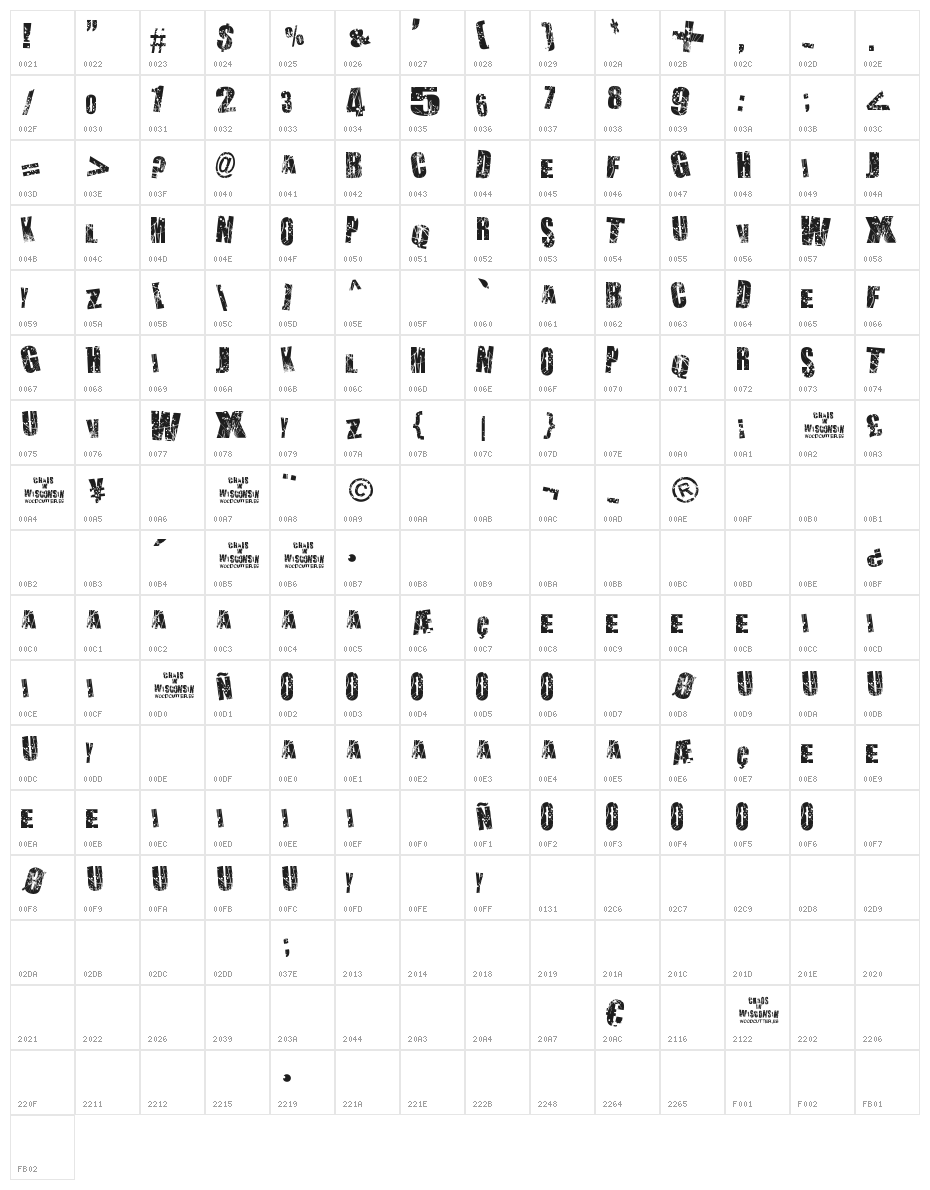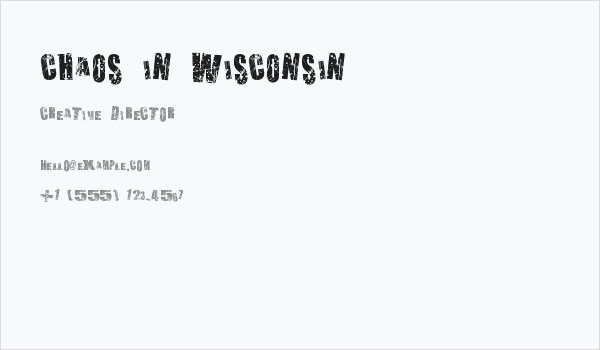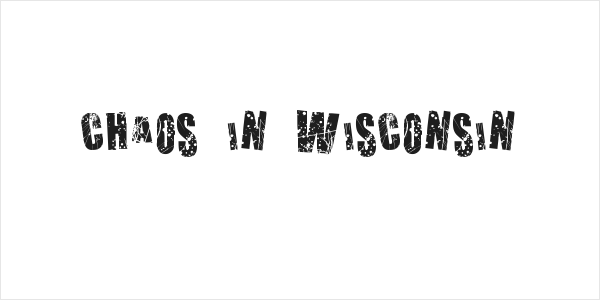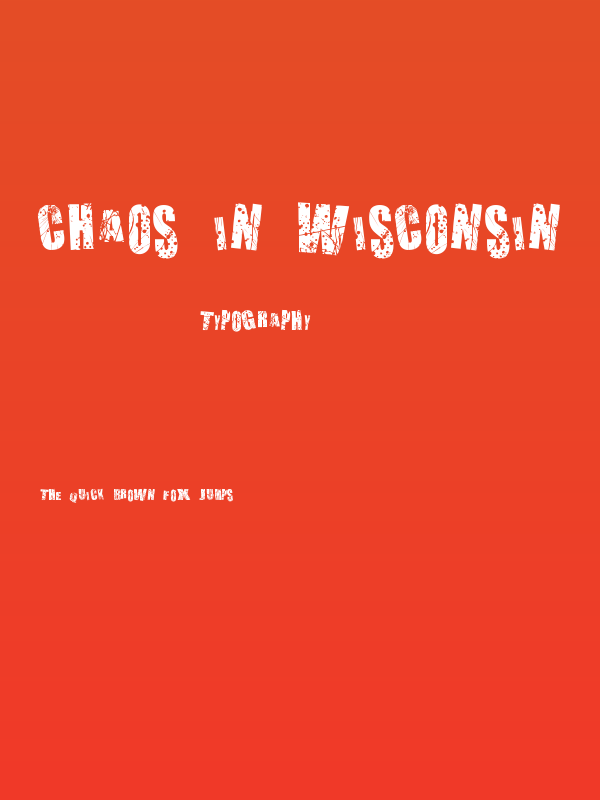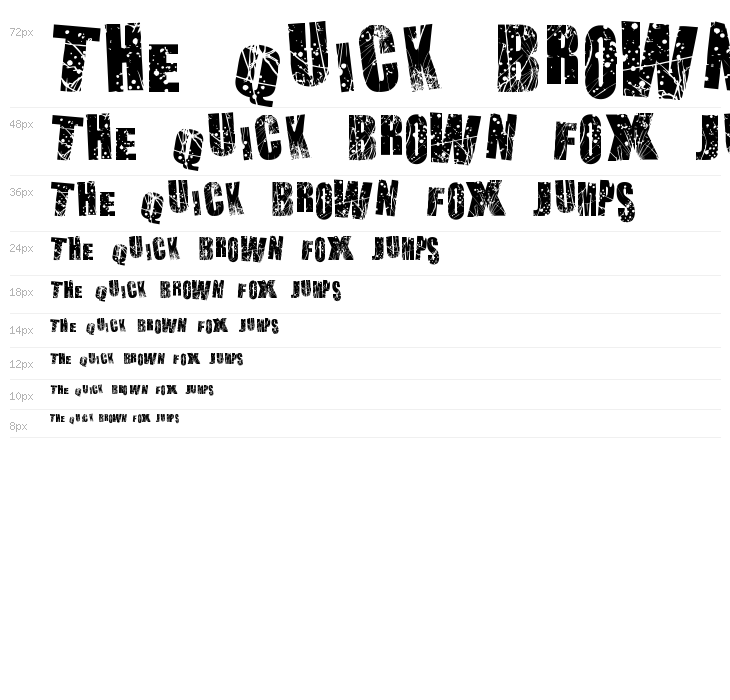
Chaos in Wisconsin Font
Chaos in Wisconsin Description
This font features a bold, chaotic design with a distressed, grunge aesthetic. Each character is filled with splatters and scratches, creating a sense of disorder and energy. The uppercase and lowercase letters maintain a consistent style, with jagged edges and irregular shapes that add to the overall chaotic feel. Numbers and special characters follow the same design principles, ensuring a cohesive look across all glyphs. This font is perfect for projects that require a bold statement or a rebellious, edgy vibe.
| Overall Style | Grunge, Chaotic, Edgy |
| Use Case | Headlines, Posters, Logos |
| Proposed Projects | Ideal for music album covers, rebellious fashion branding, edgy posters, or any project needing a bold, chaotic statement. |